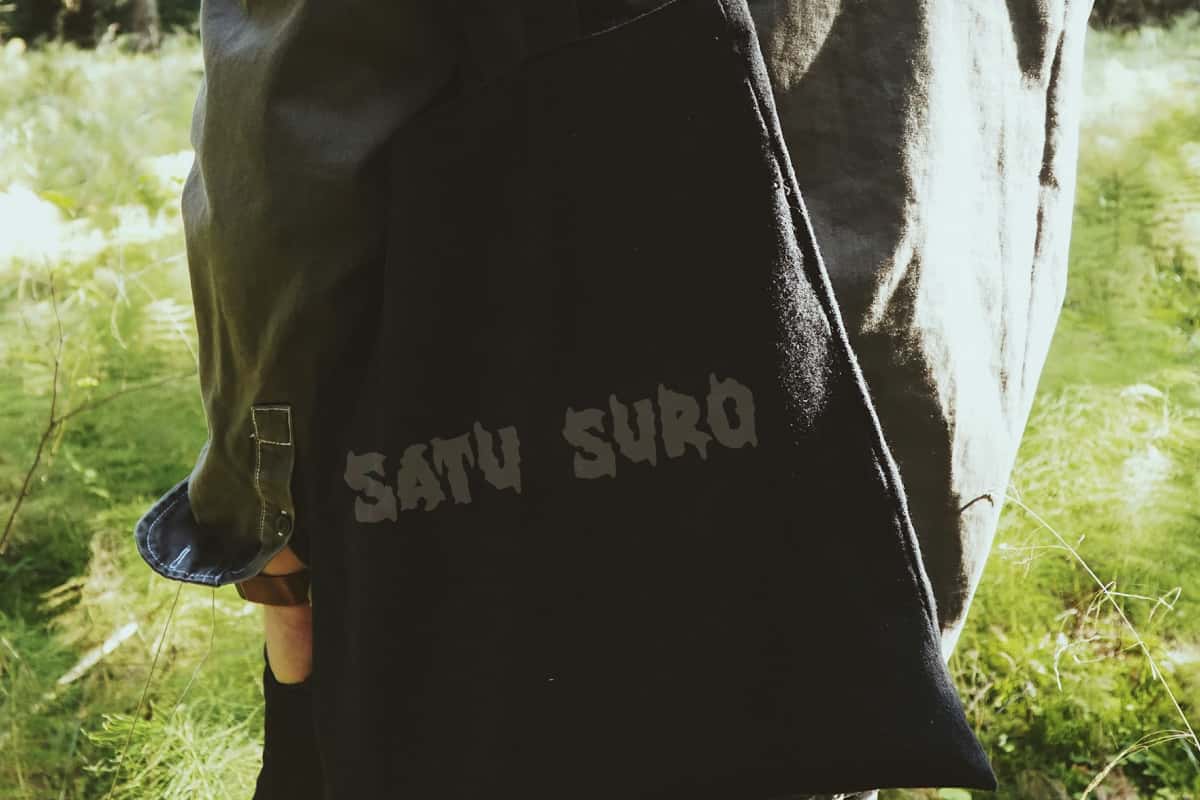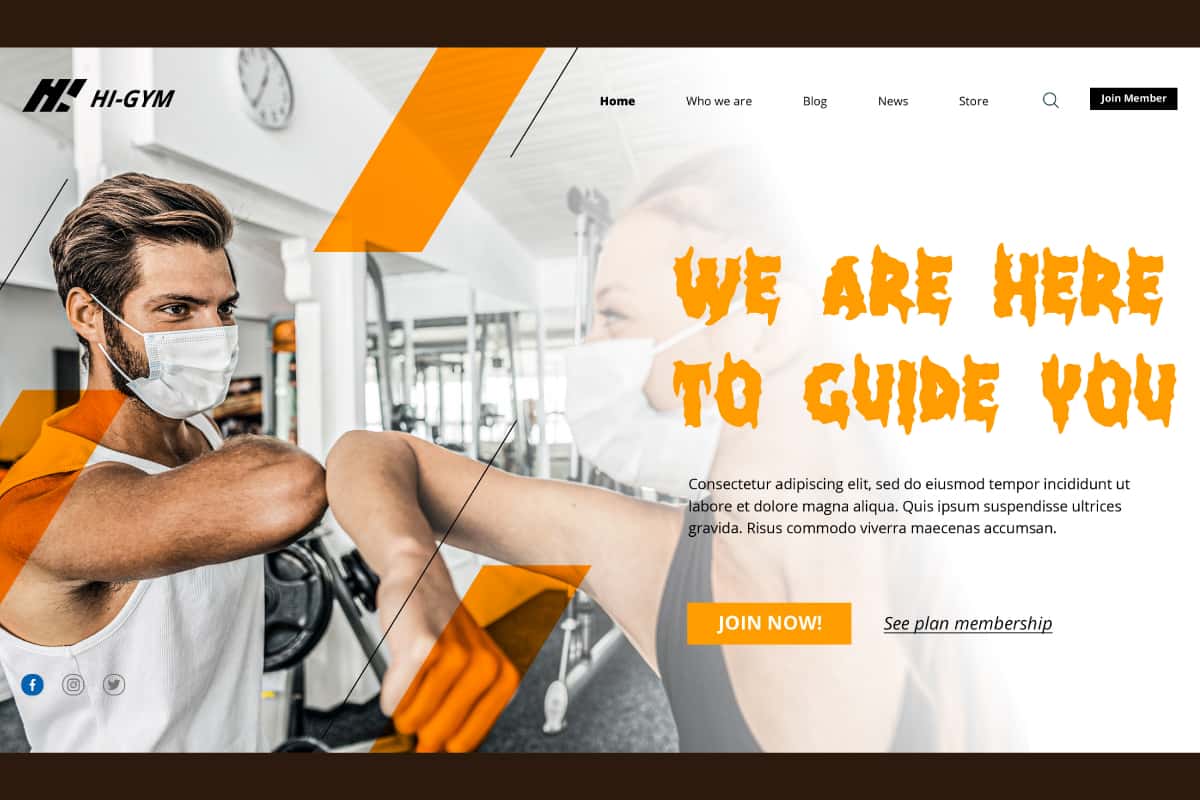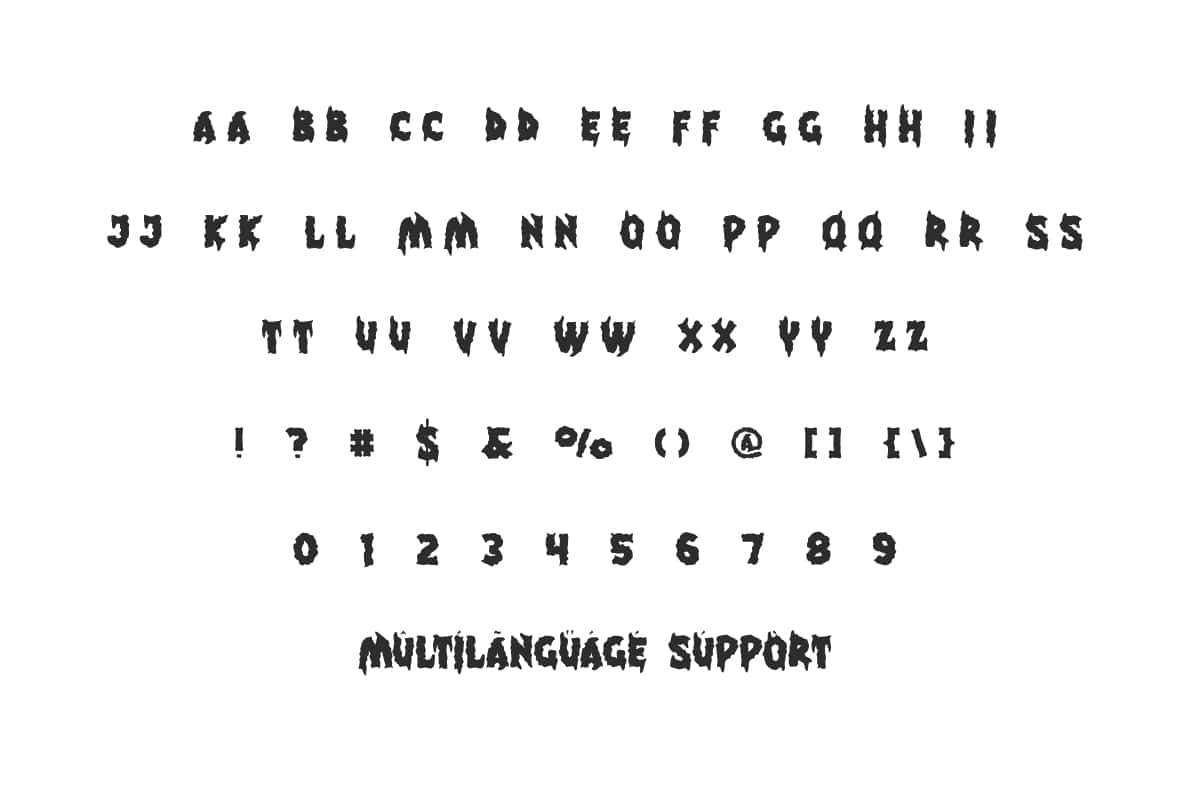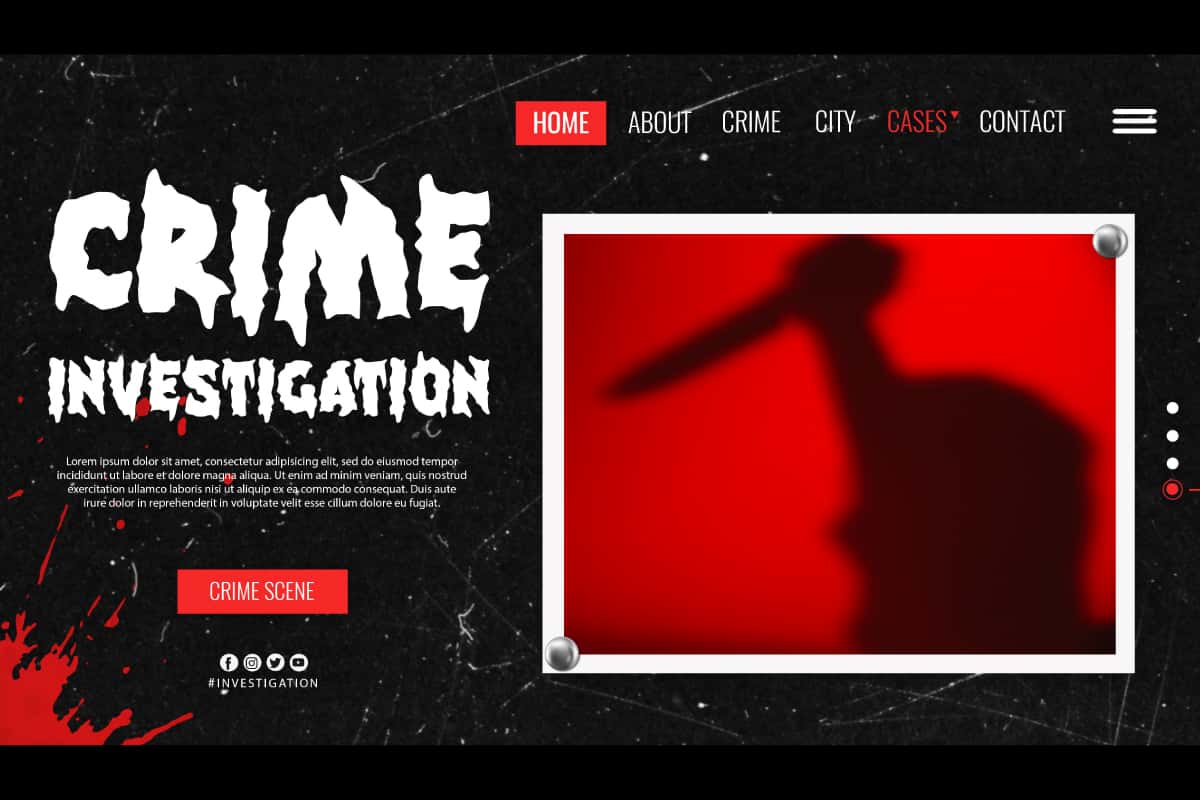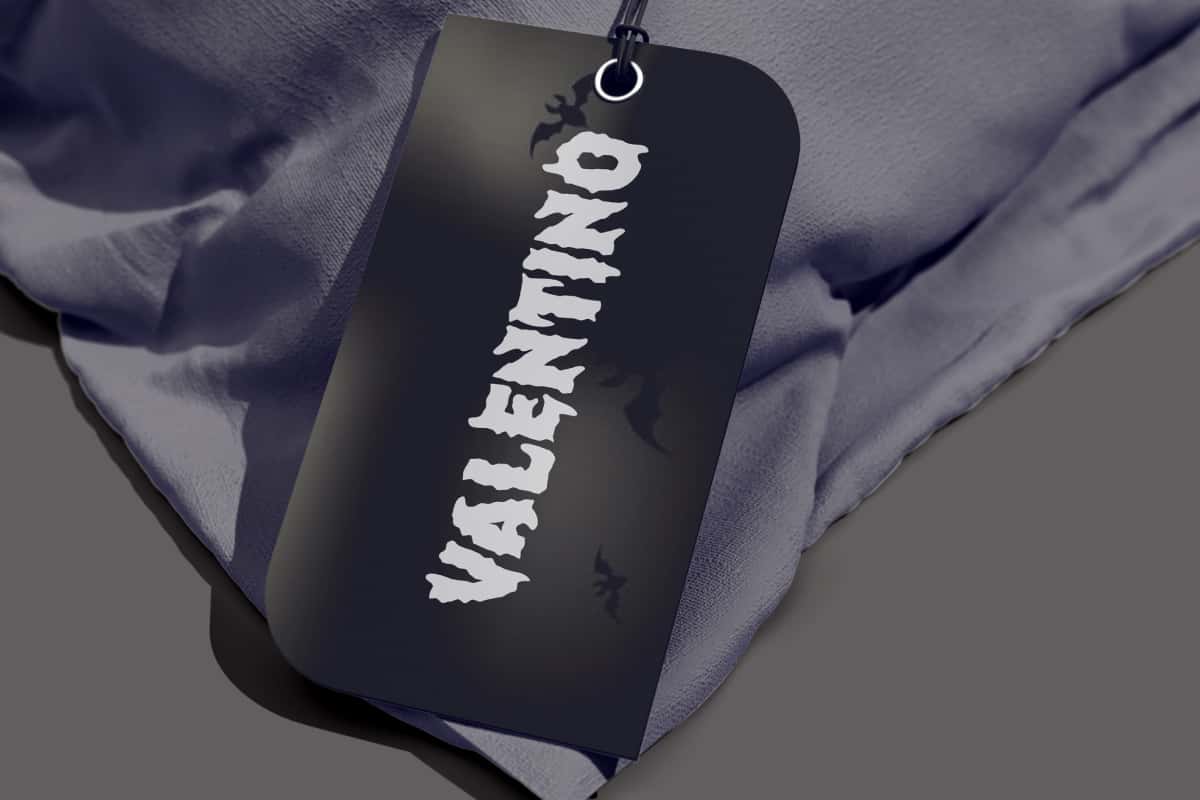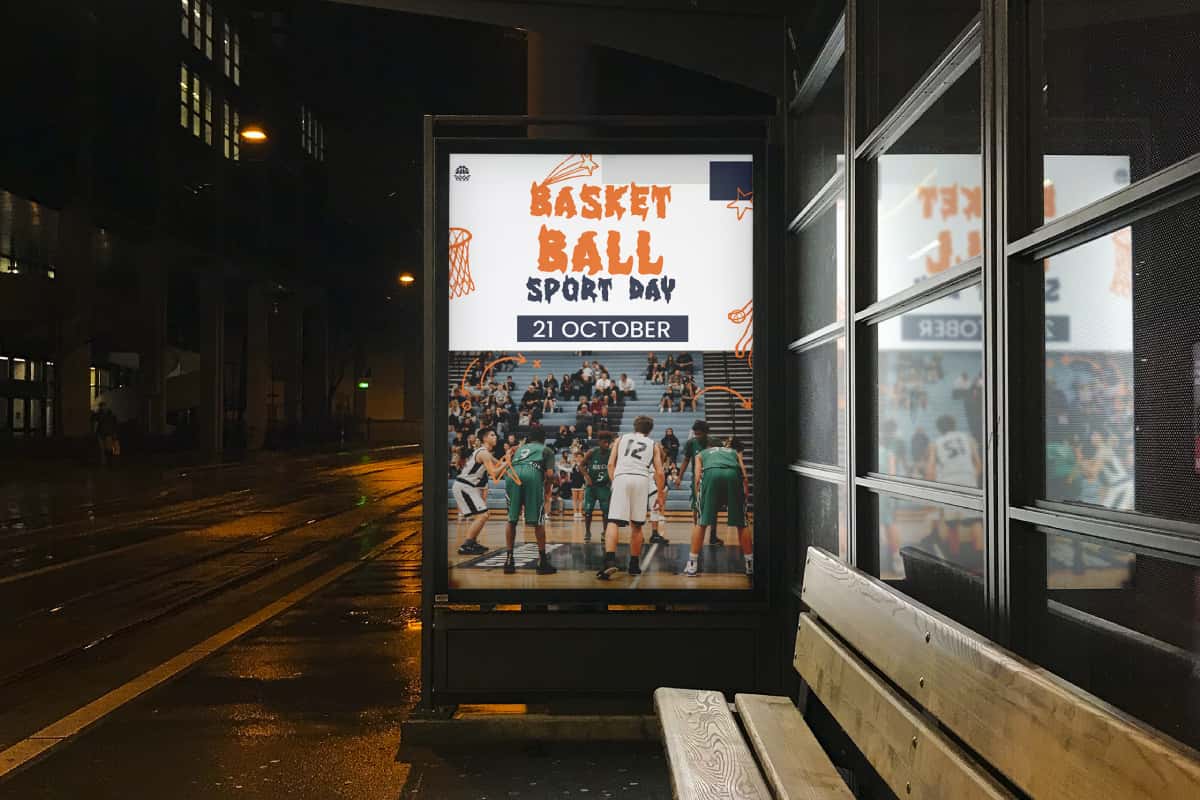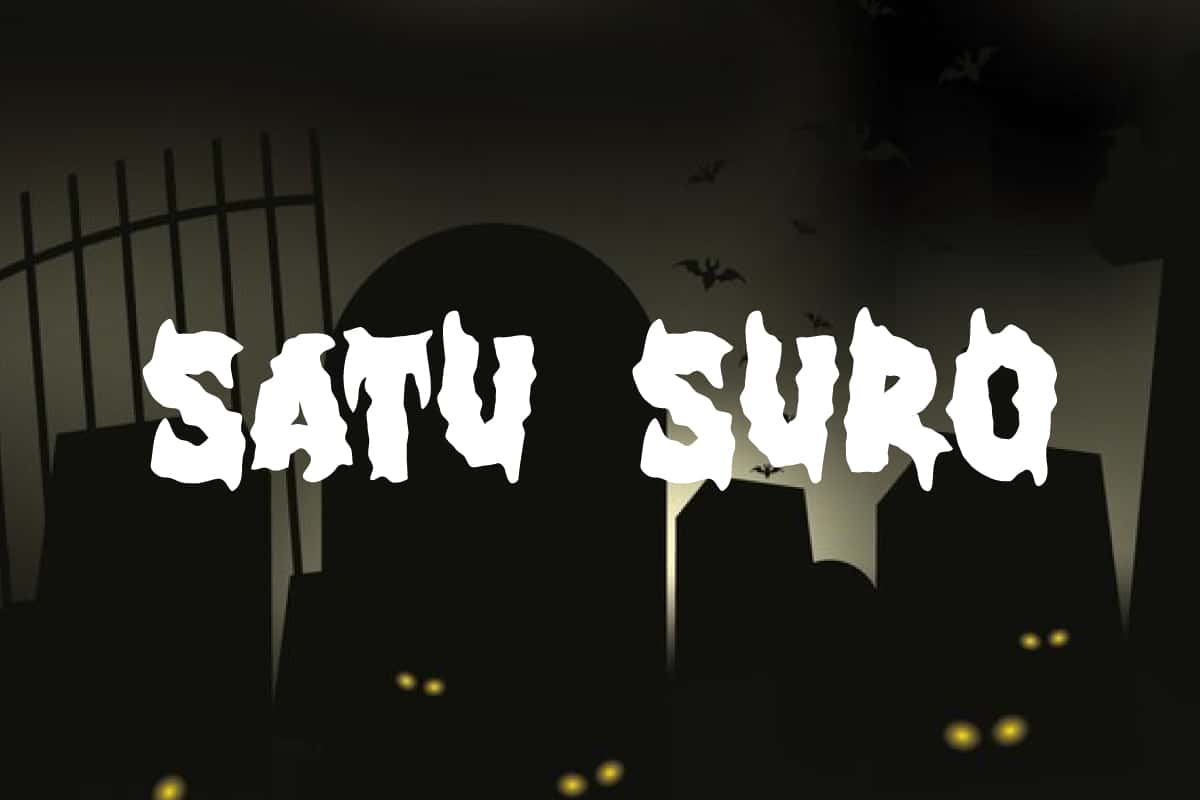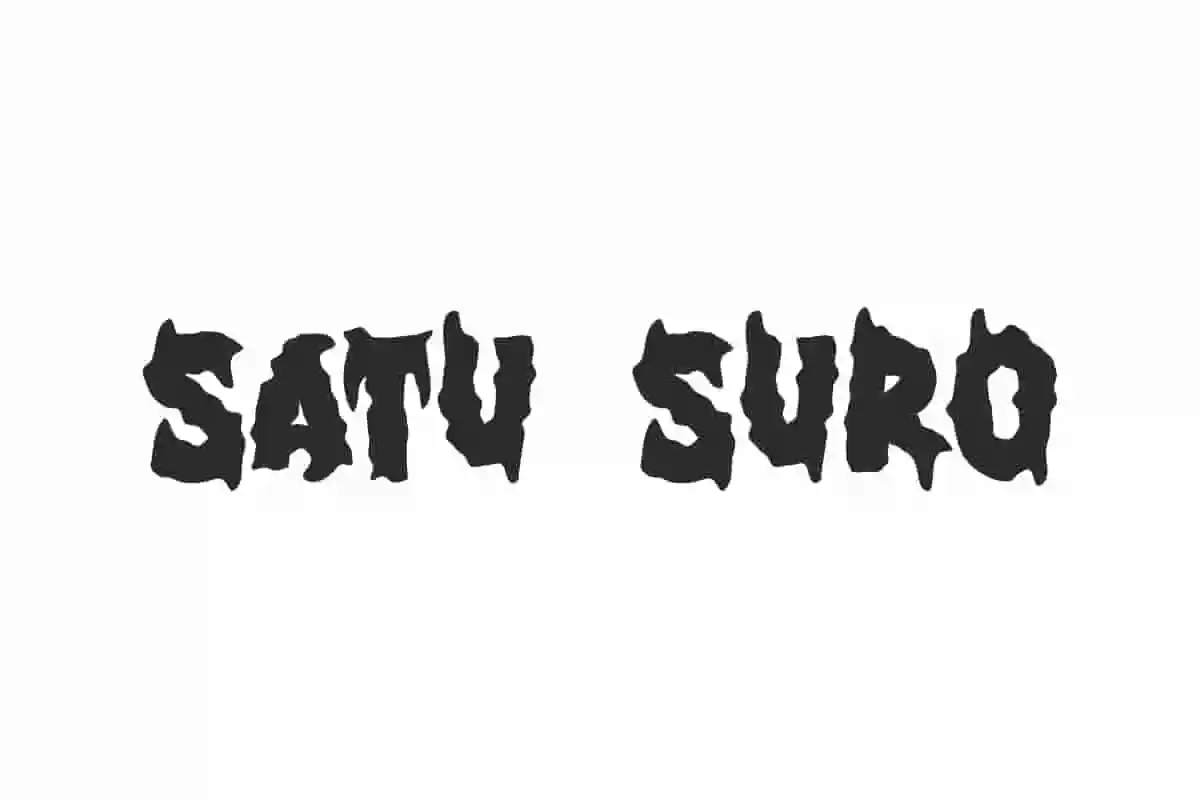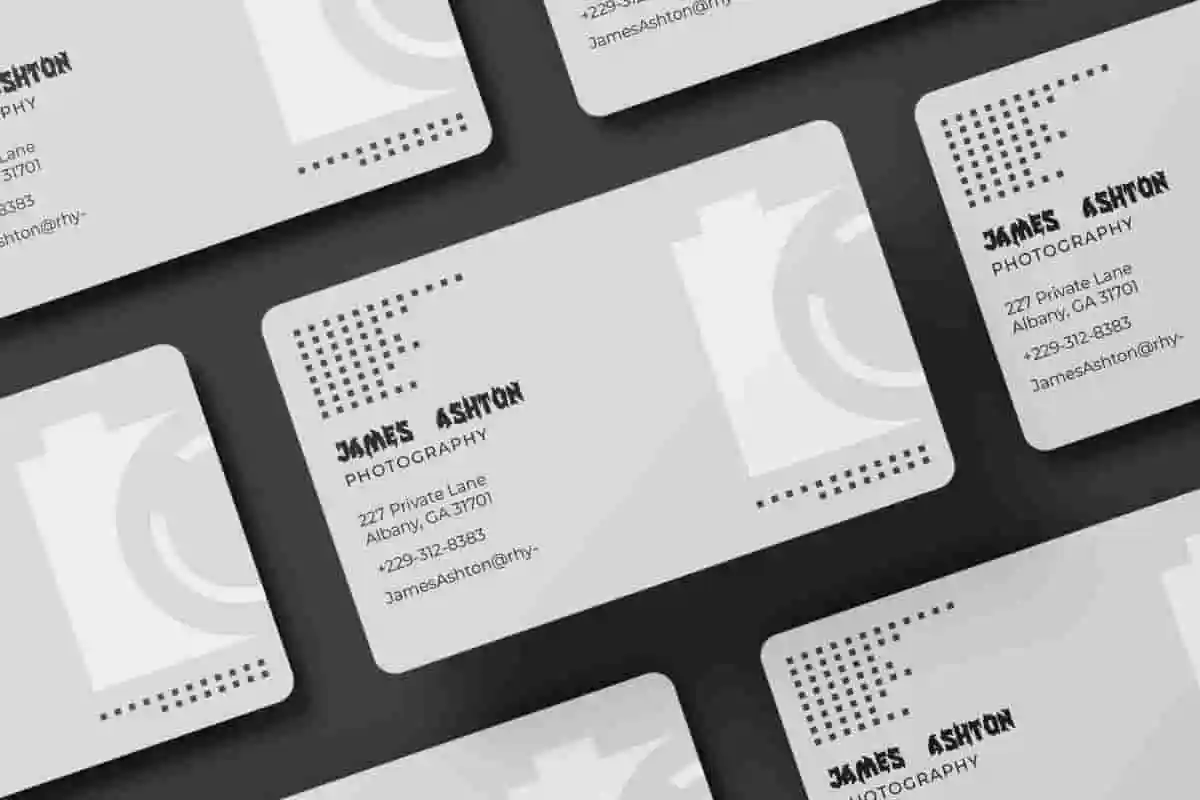
Satu Suro Font
Satu Suro Font is an impactful black metal display font with a fierce, characterful, and sharp style that conveys courage and assertiveness.
Satu Suro Font is a black metal display font, designed with a strong, fierce, and distinctive character. The sharp and robust letter style boldly embodies courage and assertiveness. Perfect for blogs, cover, decoration, display, headers, label, logos, mockup, movie posters, quotes, sticker, template, text art on background, titles, web design, and much more.
Satu Suro Font publishing, includes full set of ALL CAPS for Uppercase and Lowercase Characters, Numbers, Punctuation and Symbols. This font is perfectly crafted and has minimal errors so it will be perfect for all your creative ideas, such as circus, e-sports, entertainment, film, gaming, Halloween, horror, music, parties, sports, video games, and others.